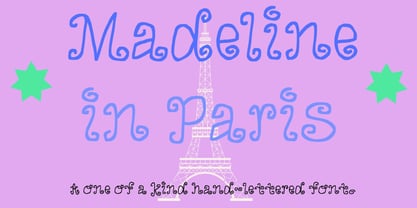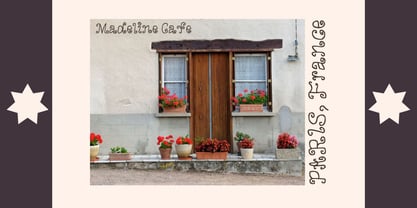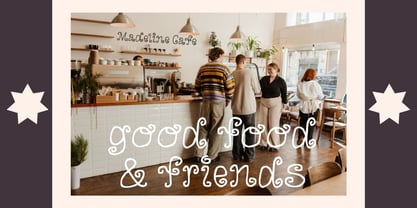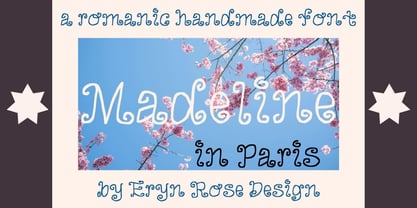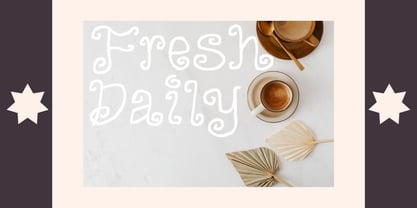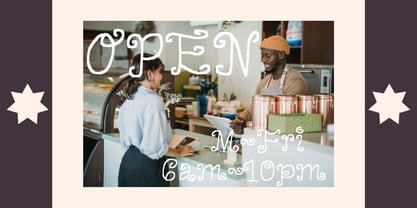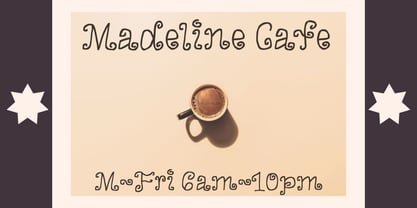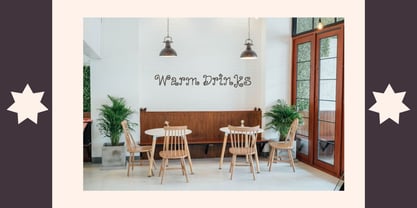
Madeline in Paris
by Eryn Rose Design
The Madeline in Paris Font Family was designed by Eryn Rose Tomlinson and published by Eryn Rose Design. Madeline in Paris contains 1 styles. More about this family
Madeline , she's quaint, elegant, and welcoming - pulling you in with her delightful imperfection and beautiful swirls. Madeline is truly a font with that je ne sais quoi .
Madeline was made with a warm human hand , retaining soul, personality, and authentic magnetism. This is a great font for those who appreciate the imperfect hand-drawn aesthetic , while remaining refreshingly clean, new, and trendy. I love this font for : wedding invitations, stationary design, indie book or album covers, children's fashion labels, or display/product design. People will be asking, who is that Madeline girl ?